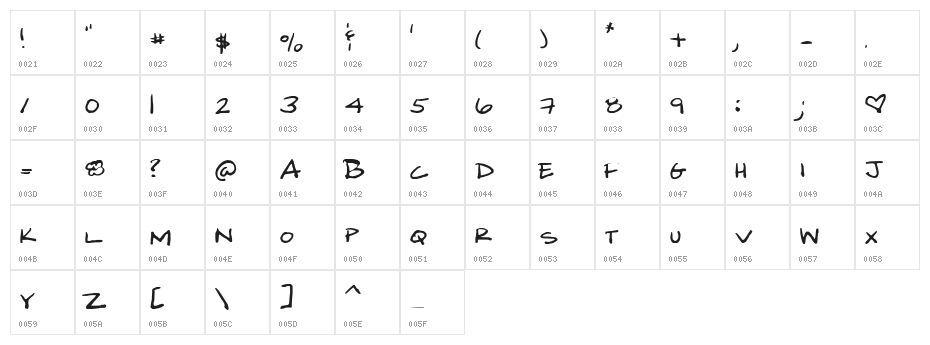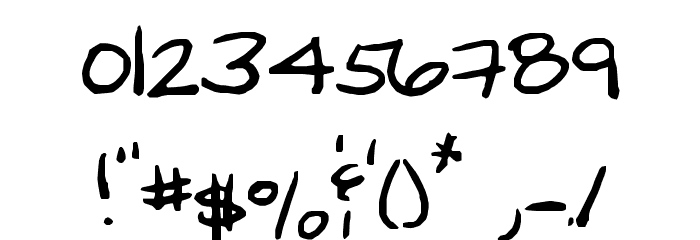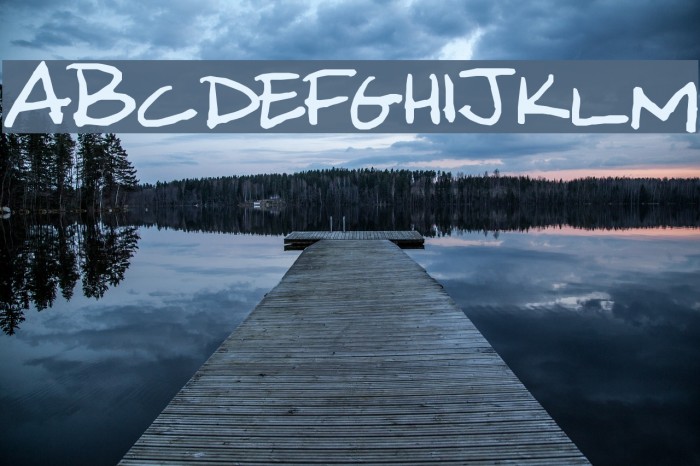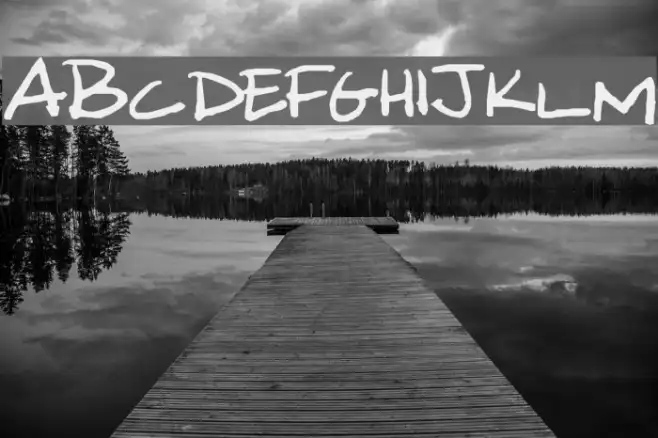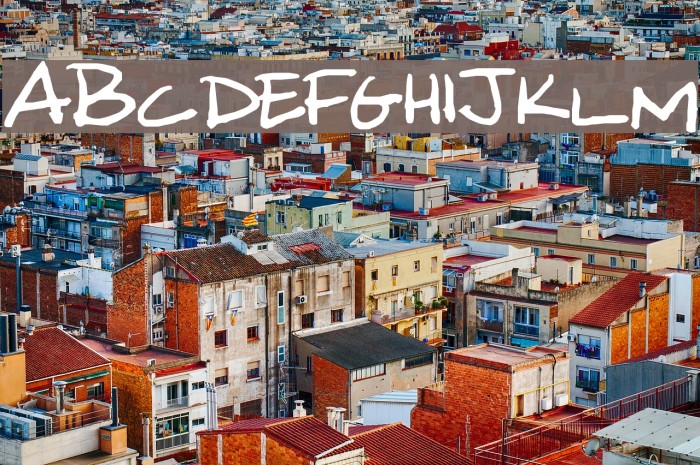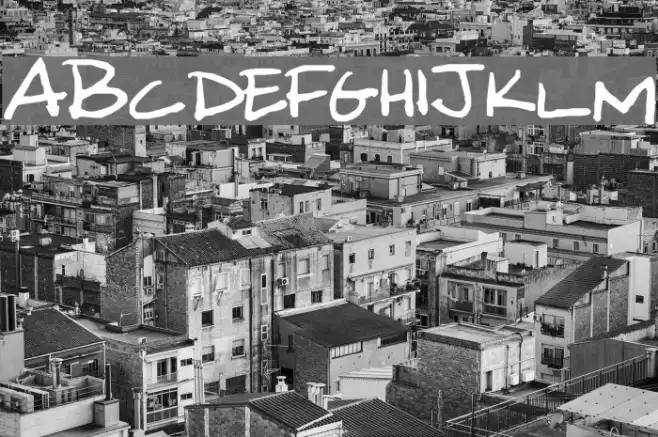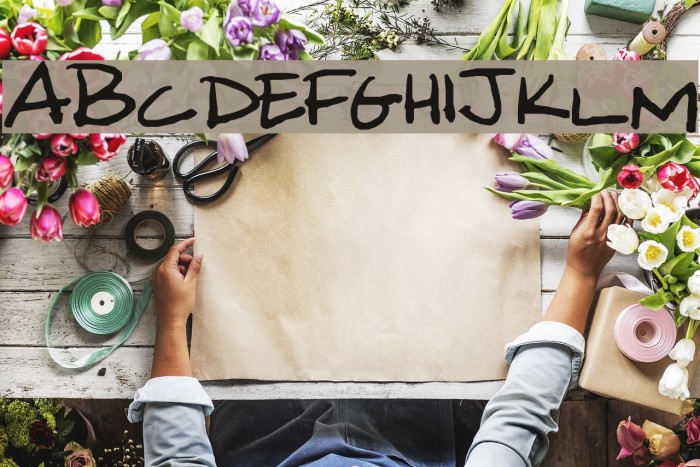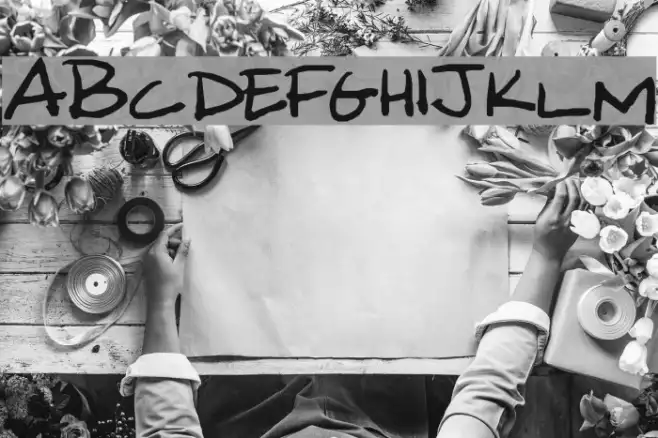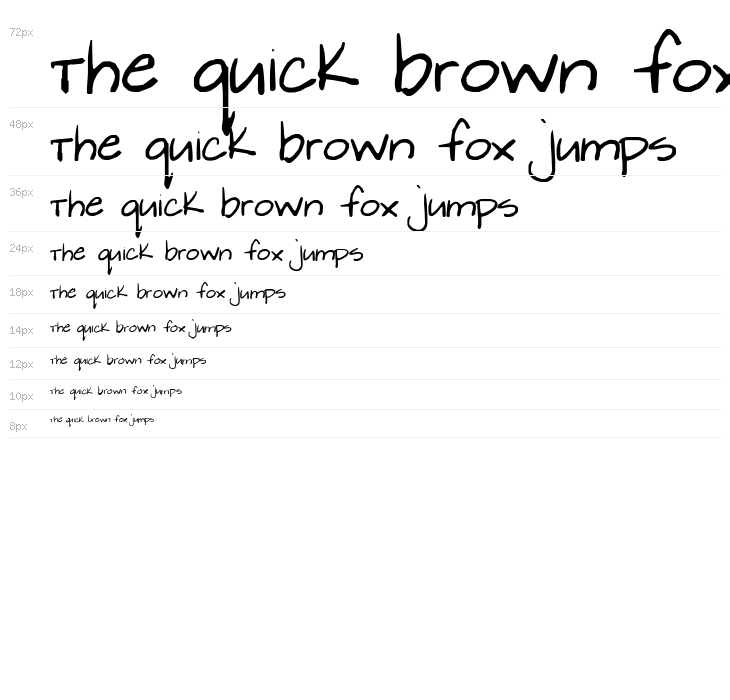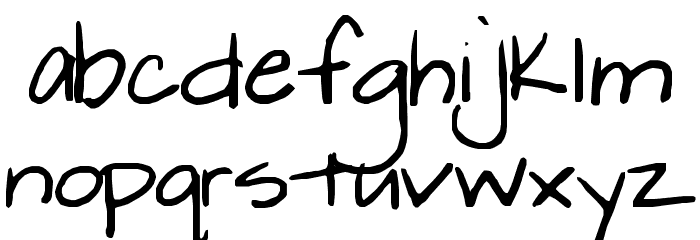
Michele Font
Michele Description
This font exhibits a playful and informal handwritten style, characterized by its irregular strokes and casual appearance. The letters are slightly slanted, giving a dynamic and energetic feel. Uppercase and lowercase letters maintain a consistent flow, with rounded edges and varying stroke widths that add to its charm. The numerals and special characters follow the same whimsical style, making it suitable for creative and informal projects. The overall appearance is approachable and friendly, ideal for conveying a personal touch.
MICHELE UPPERCASE
MICHELE LOWERCASE
MICHELE OTHER CHARS